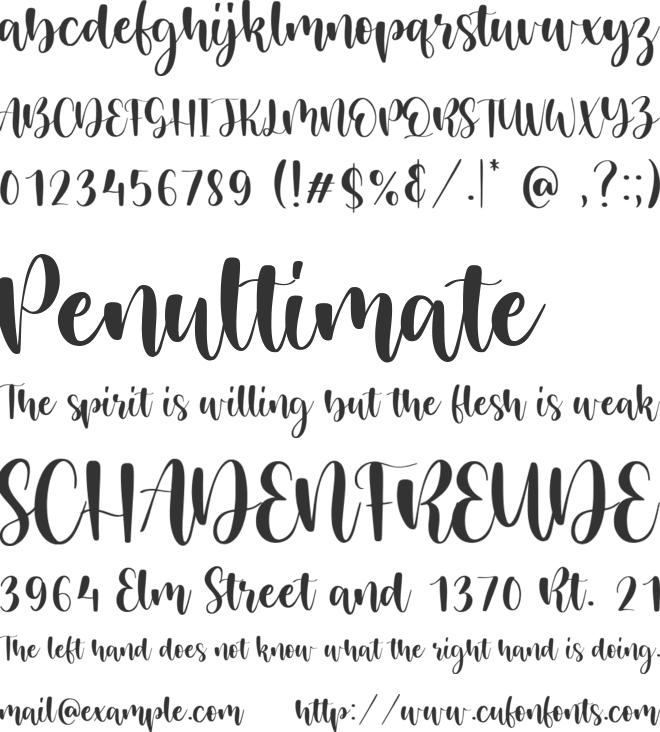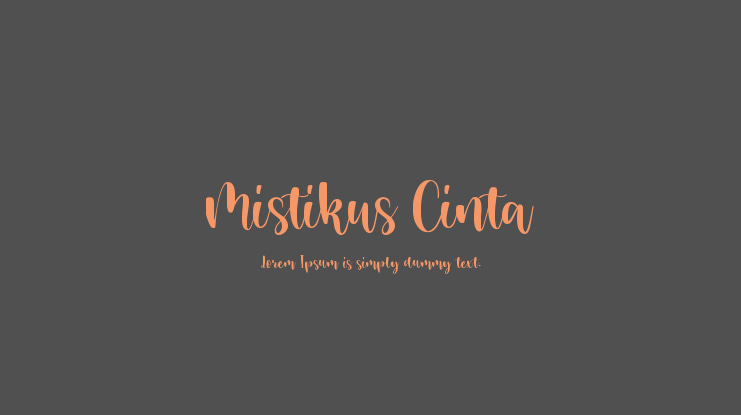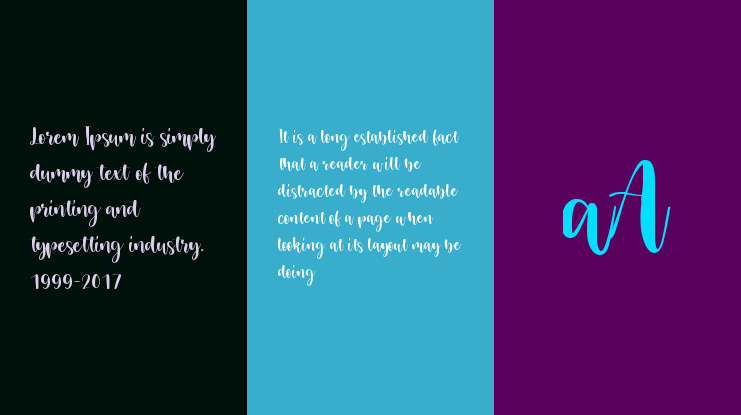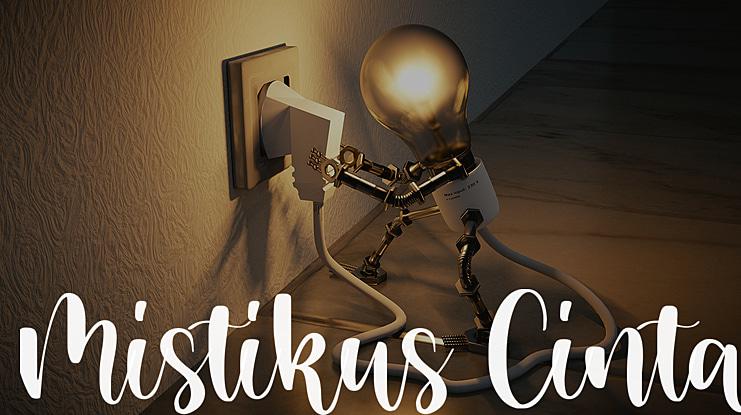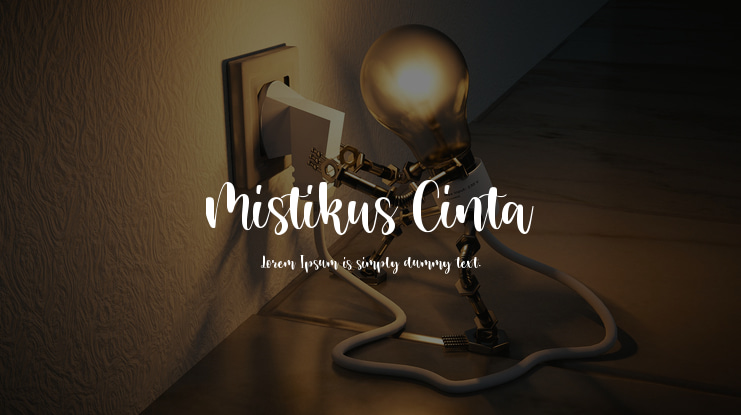
Mistikus Cinta Font
Balpirick Studio
Proudly Present, Mistikus Cinta Font.
Mistikus Cinta is a Lovely Modern Handwritten Font.
Mistikus Cinta is perfect for product packaging, branding project, megazine, social media, wedding, or just used to express words above the background.